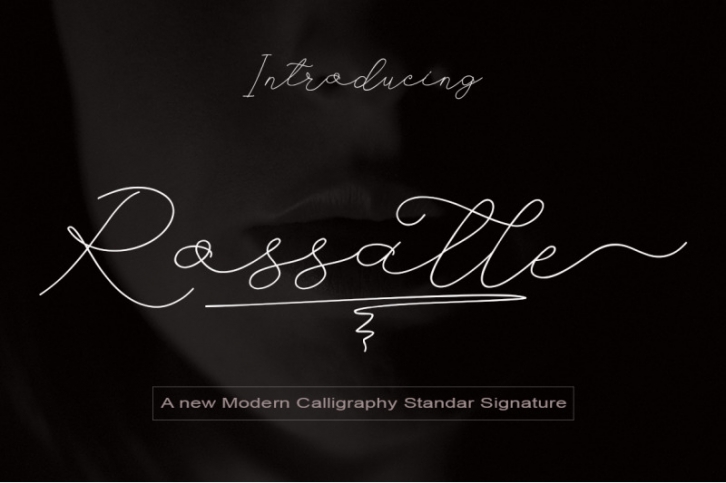
Rossalle a fonts of Rossalle stylish calligraphy that have a varied base line, fine lines, classic and elegant touches. Can be used for various purposes. Such as title, signature, logo, wedding invitation, t-shirt, letterhead, nameplate, label, news, poster, badge etc.
Rossalle displays stylish calligraphy alternate characters. Includes initial letters and terminals, alternatives, ligatures and multiple language support.
The Features of this fonts is:
* Standart ligatures
* Stylistic Alternates
* PUA Unicode (Private Use Areas)
* Swash